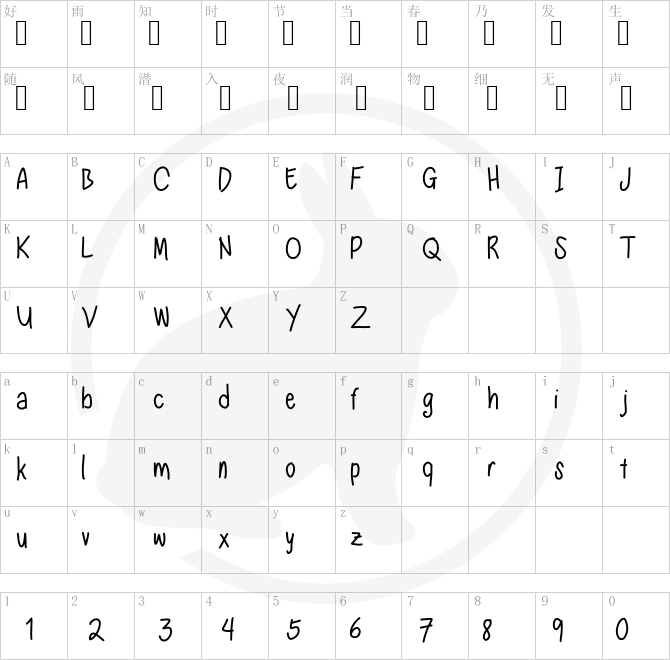
- Font Name:Nadezna's Handwritting
Nadezna-s-Handwritting.ttf is a very beautiful artistic font, Nadezna-s-Handwritting.ttf is widely used in the design and printing of various books and pictures,Nadezna-s-Handwritting.ttf has a strong visual impact,Nadezna-s-Handwritting.ttf is a commonly used font in newspapers, magazines and books, and is used in posters, e-commerce Poster design, store design, logo design, font design and other fields.Nadezna-s-Handwritting.